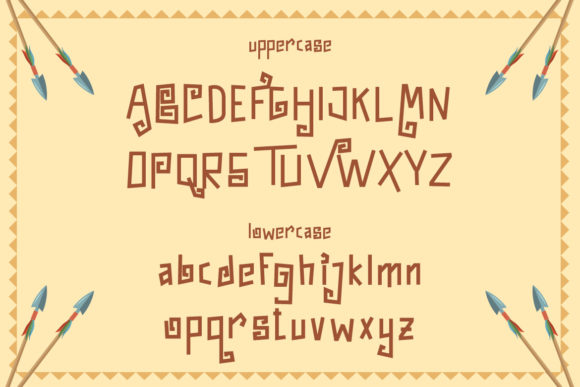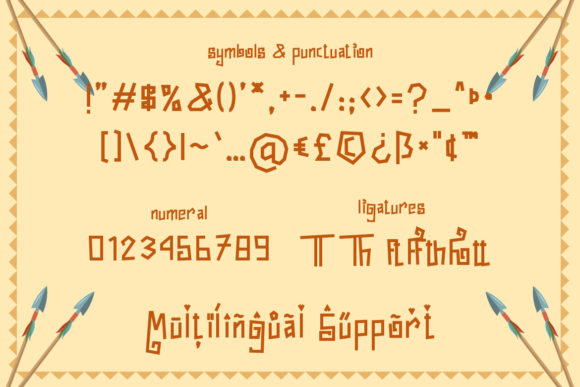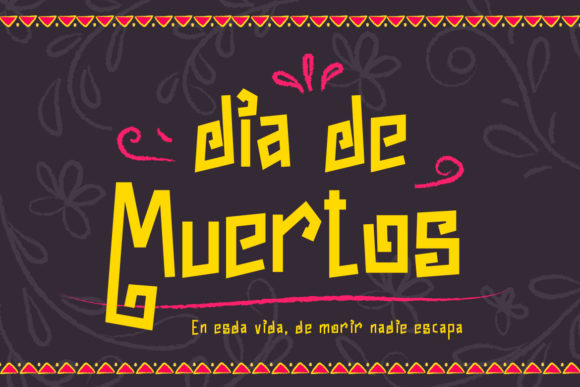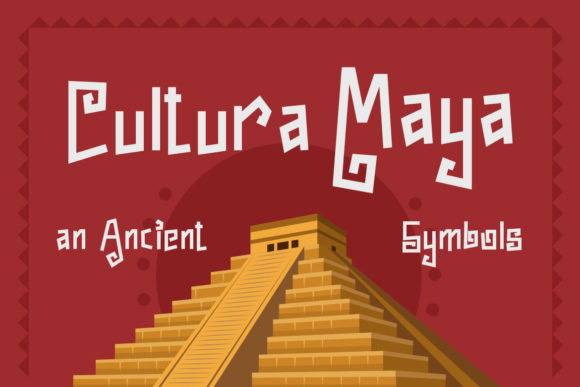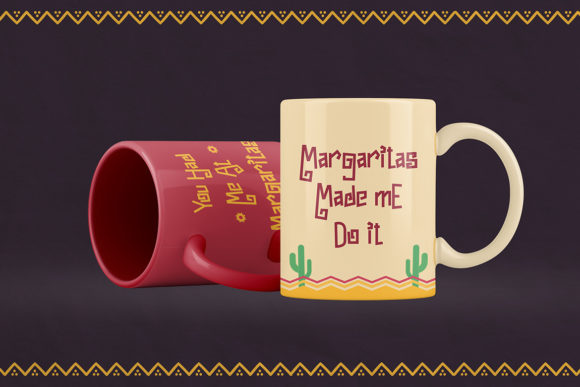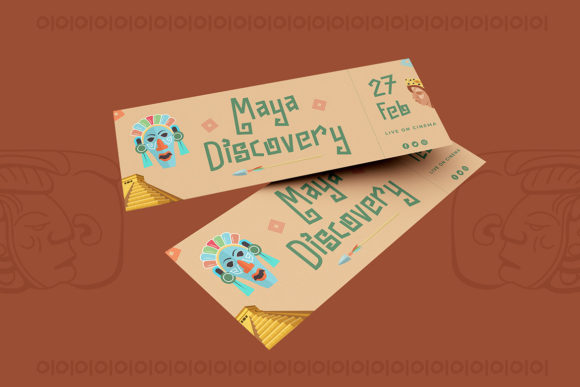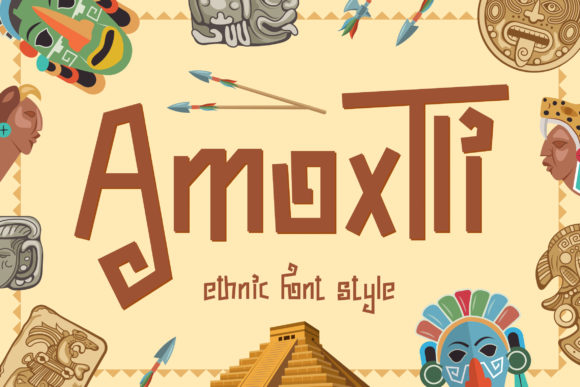
Amoxtli Font: Elevate Your Designs with a Unique and Crafty Display Font
In the world of typography, a font can make or break a design. A great font can elevate your project from ordinary to extraordinary, while a bland one can leave it flat. If you’re a designer or crafter looking for a font that will add a touch of personality to your work, look no further than Amoxtli Font. In this article, we’ll dive into the world of Amoxtli, exploring its unique features, uses, and benefits.
What is Amoxtli Font?
Amoxtli Font is an incredibly neat and unique display font that is sure to turn heads. With its original look, it’s perfect for a wide range of crafty ideas, from letterheads and titles to stationery. The font’s distinctive style is sure to add a touch of personality to any design, making it stand out from the crowd.
Key Features of Amoxtli Font
So, what makes Amoxtli Font so special? Here are just a few of its key features:
- Unique and Original Design: Amoxtli Font boasts a one-of-a-kind design that’s sure to grab attention.
- Display Font: This font is perfect for headlines, titles, and other display text.
- Crafty and Versatile: Amoxtli Font can be used for a wide range of projects, from letterheads to stationery.
- Easily Readable: Despite its unique design, Amoxtli Font is still easy to read, making it perfect for body text as well.
Uses for Amoxtli Font
So, what can you use Amoxtli Font for? The possibilities are endless! Here are a few ideas to get you started:
- Letterheads and Stationery: Add a touch of personality to your business correspondence with Amoxtli Font.
- Titles and Headlines: Use Amoxtli Font to create eye-catching titles and headlines for your blog posts, articles, or social media graphics.
- Logos and Branding: Amoxtli Font can be used to create unique and memorable logos and branding materials.
- Invitations and Announcements: Make your invitations and announcements stand out with Amoxtli Font.
Benefits of Using Amoxtli Font
So, why should you choose Amoxtli Font for your next project? Here are just a few benefits:
- Adds Personality to Your Design: Amoxtli Font is sure to add a touch of personality to your design, making it stand out from the crowd.
- Versatile and Flexible: This font can be used for a wide range of projects, from digital to print.
- Easy to Read: Despite its unique design, Amoxtli Font is still easy to read, making it perfect for body text as well.
- Supports Multiple Languages: Amoxtli Font supports multiple languages, making it a great choice for international designs.